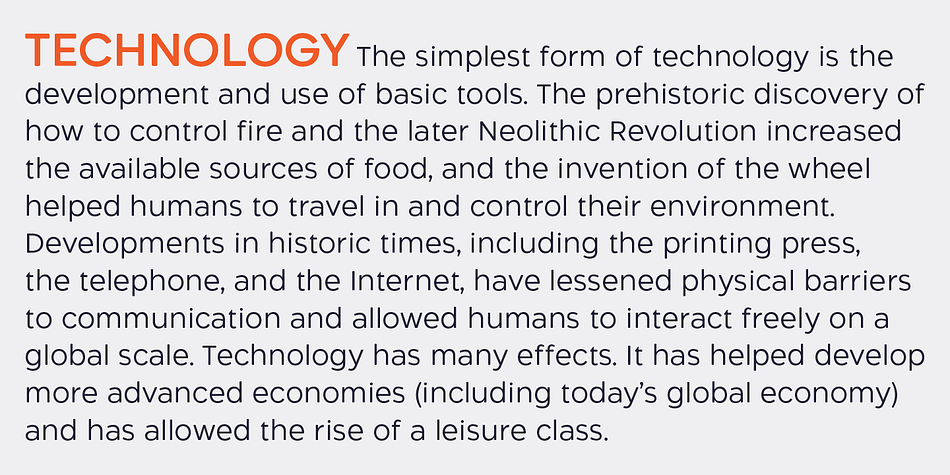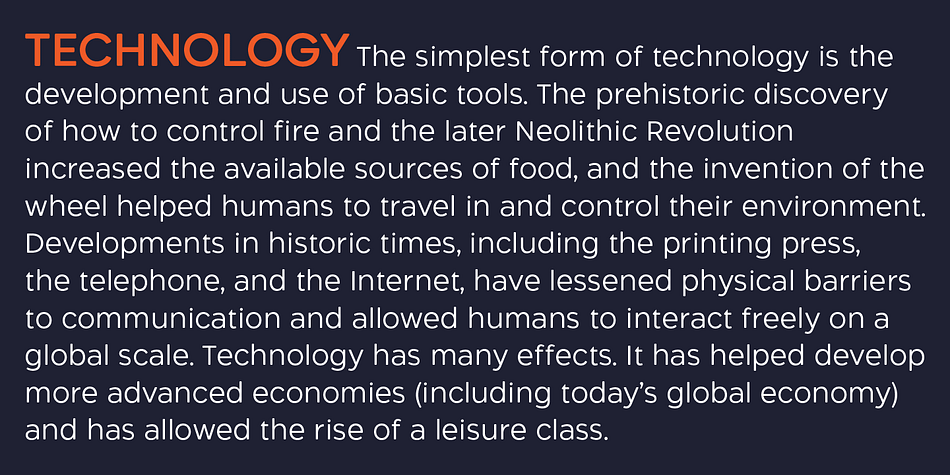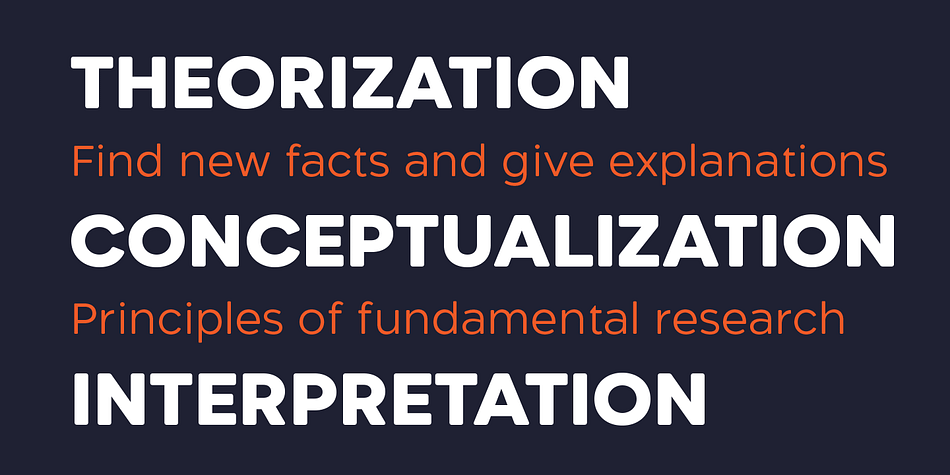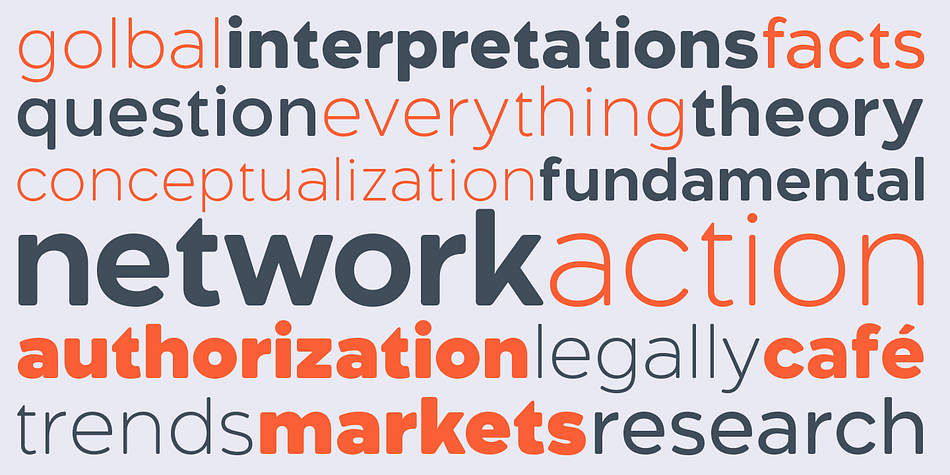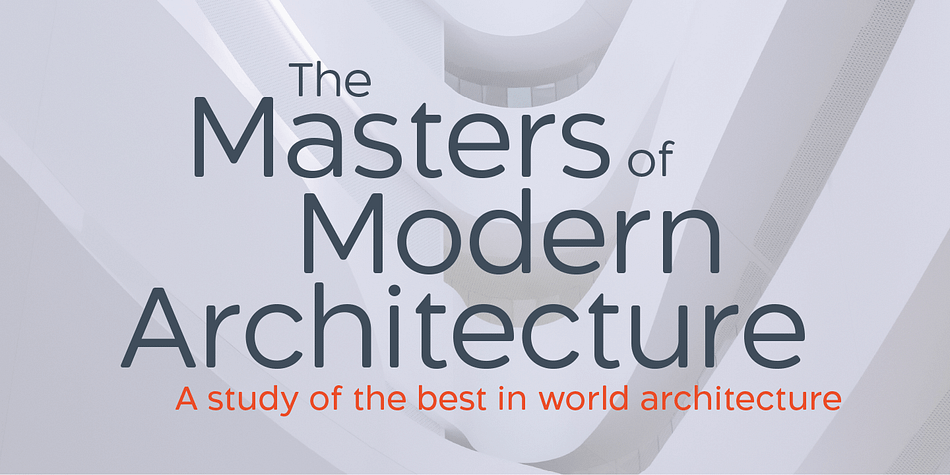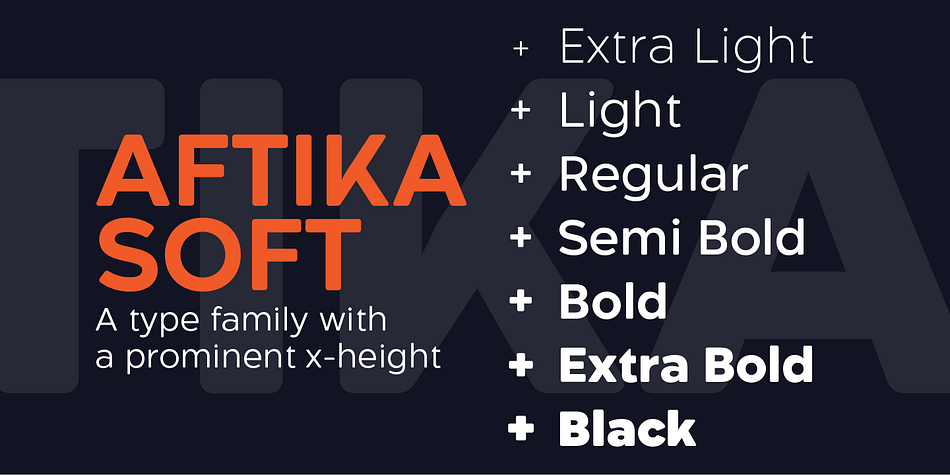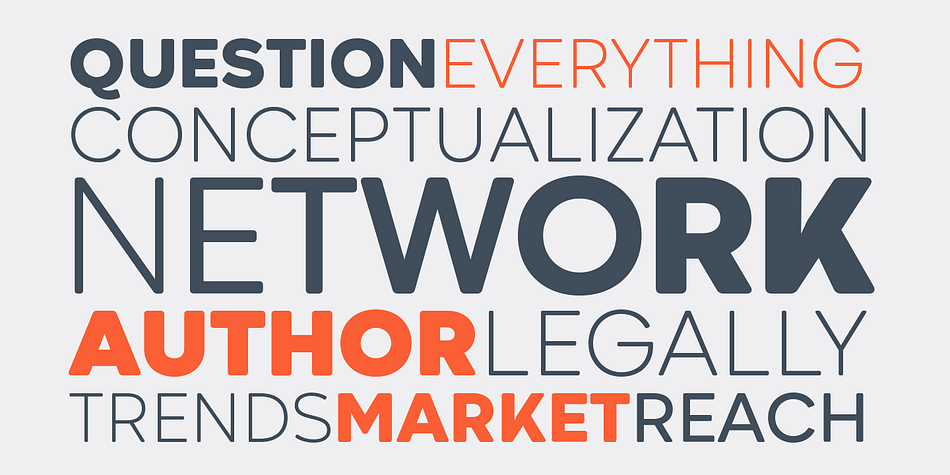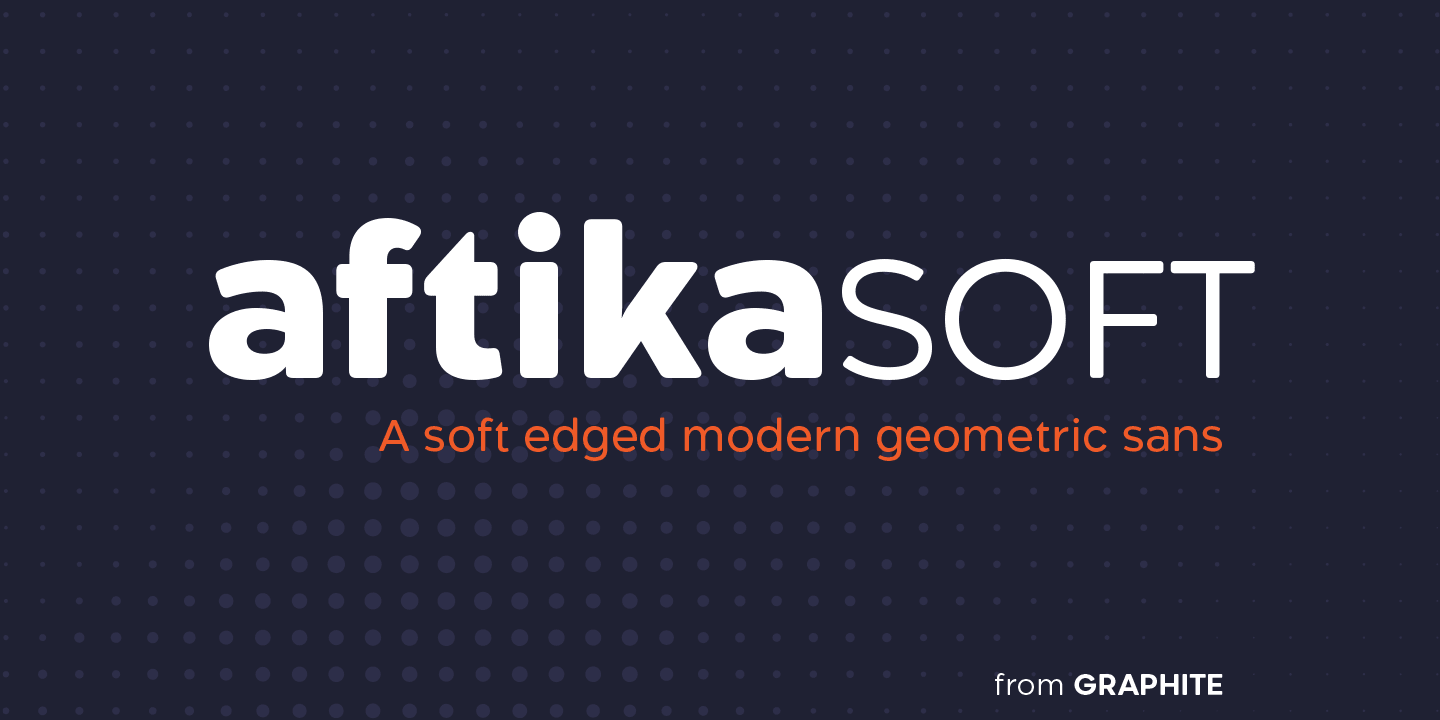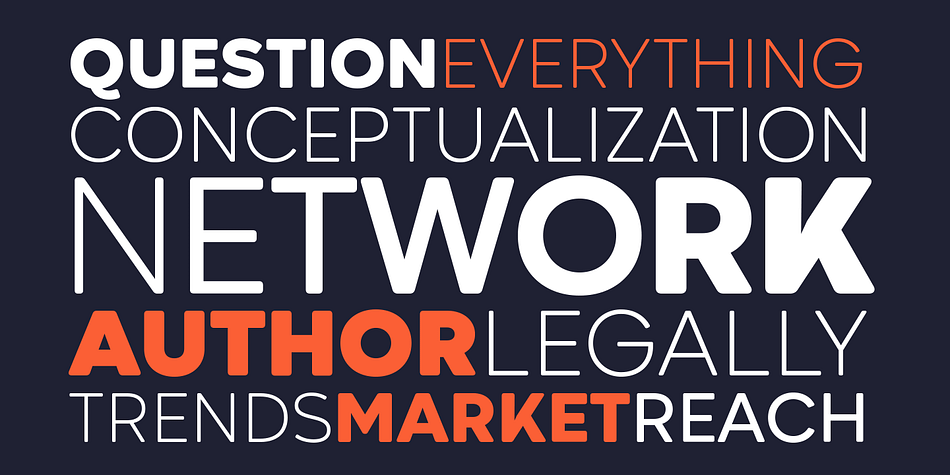
Aftika Soft
Designed by Deepak Dogra, Aftika Soft is a sans serif font family. This typeface has seven styles and was published by Graphite.
Aftika Soft is the soft edged version of Aftika type family. It is a clean geometric sans serif family of seven weights.
Characterised by a prominent x-height, it is well suited for advertising, packaging, editorial and publishing, logos, branding, posters, billboards, signage as well as for small text for print or digital screens.
Designer Deepak Dogra